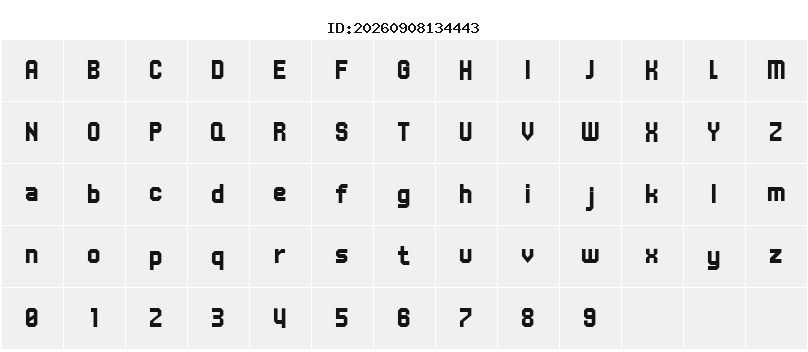
UNDA Preview
About UNDA.ttf
UNDA.ttf is a modern, elegant sans-serif font designed for ultimate readability and visual harmony. Perfect for branding, headlines, web design, and print materials.